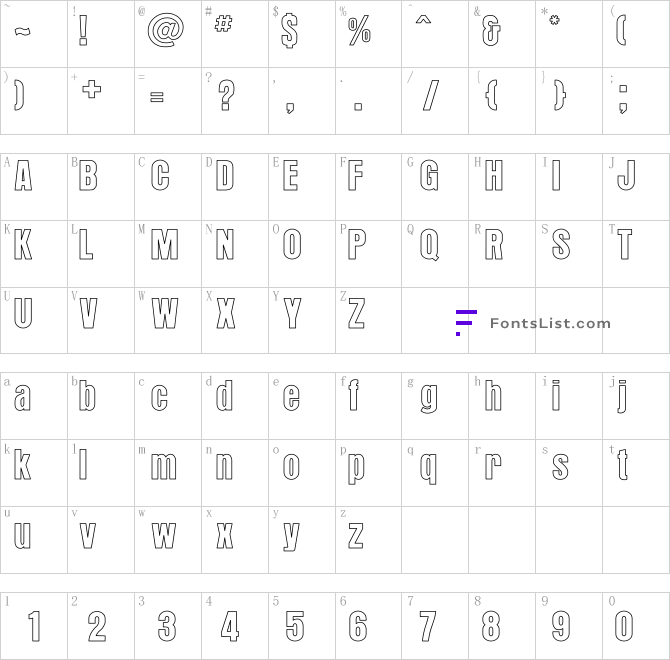
- Font Name:Aurora Hollow
Aurora-Hollow.ttf is a very beautiful artistic font, Aurora-Hollow.ttf is widely used in the design and printing of various books and pictures,Aurora-Hollow.ttf has a strong visual impact,Aurora-Hollow.ttf is a commonly used font in newspapers, magazines and books, and is used in posters, e-commerce Poster design, store design, logo design, font design and other fields.Aurora-Hollow.